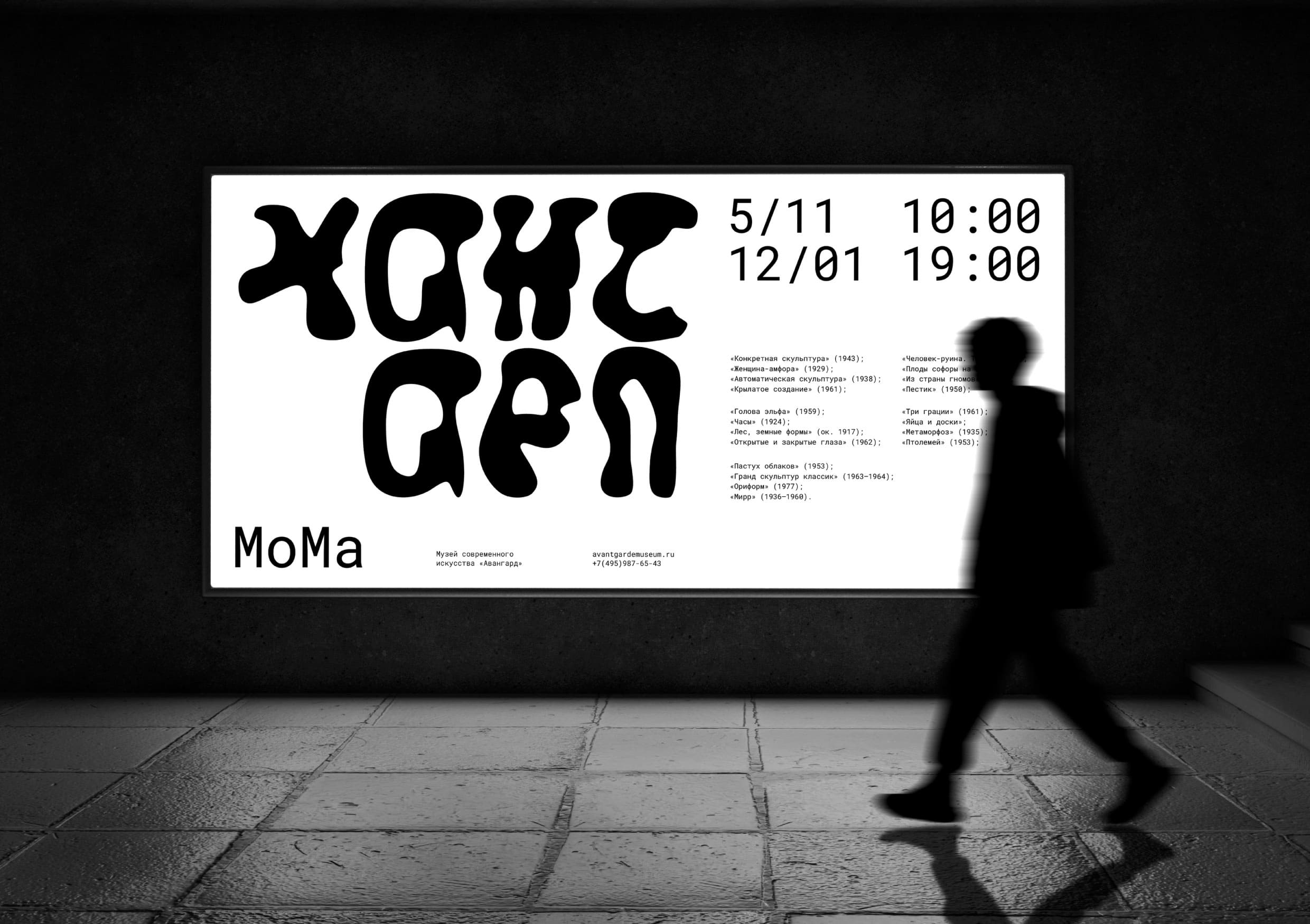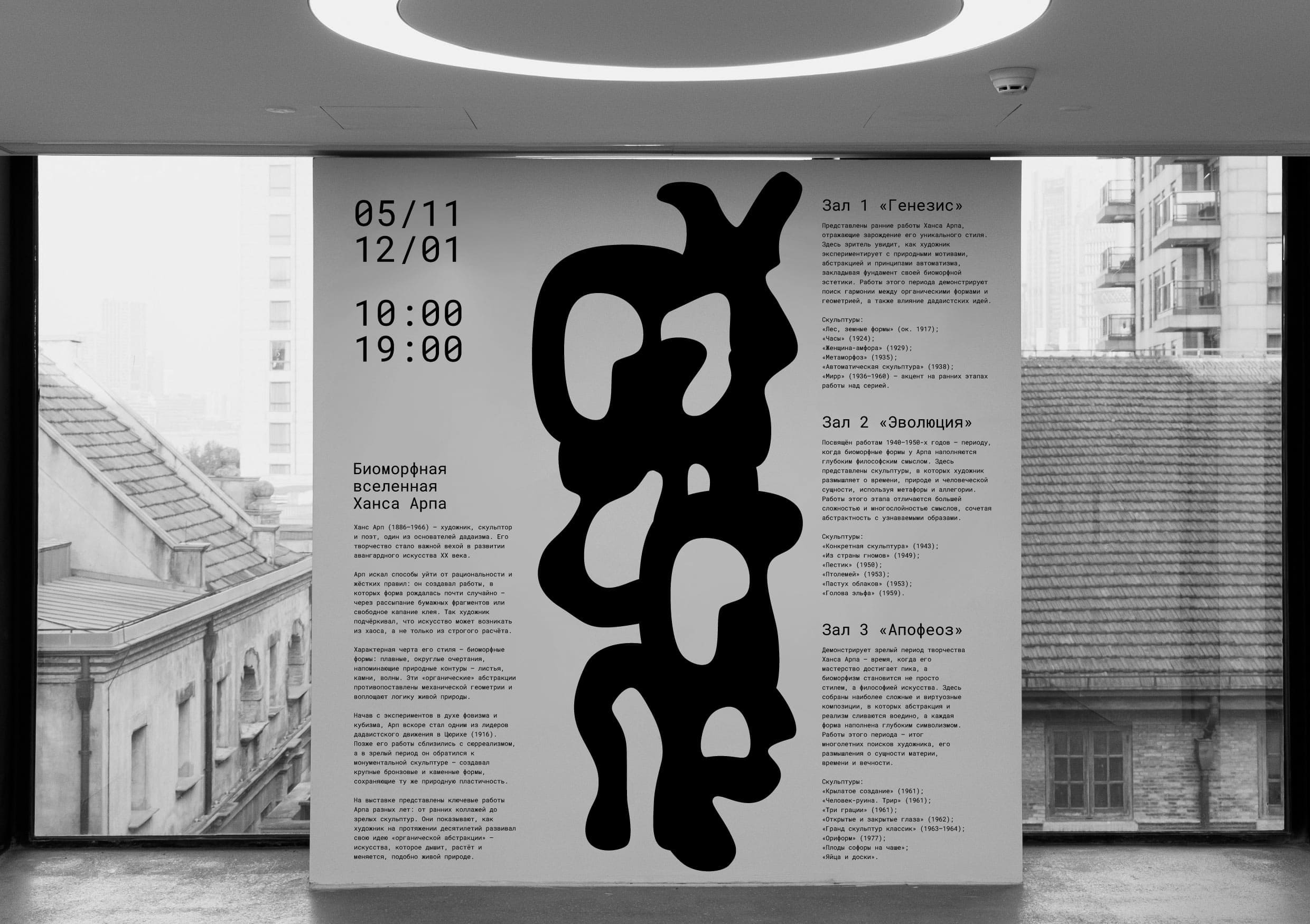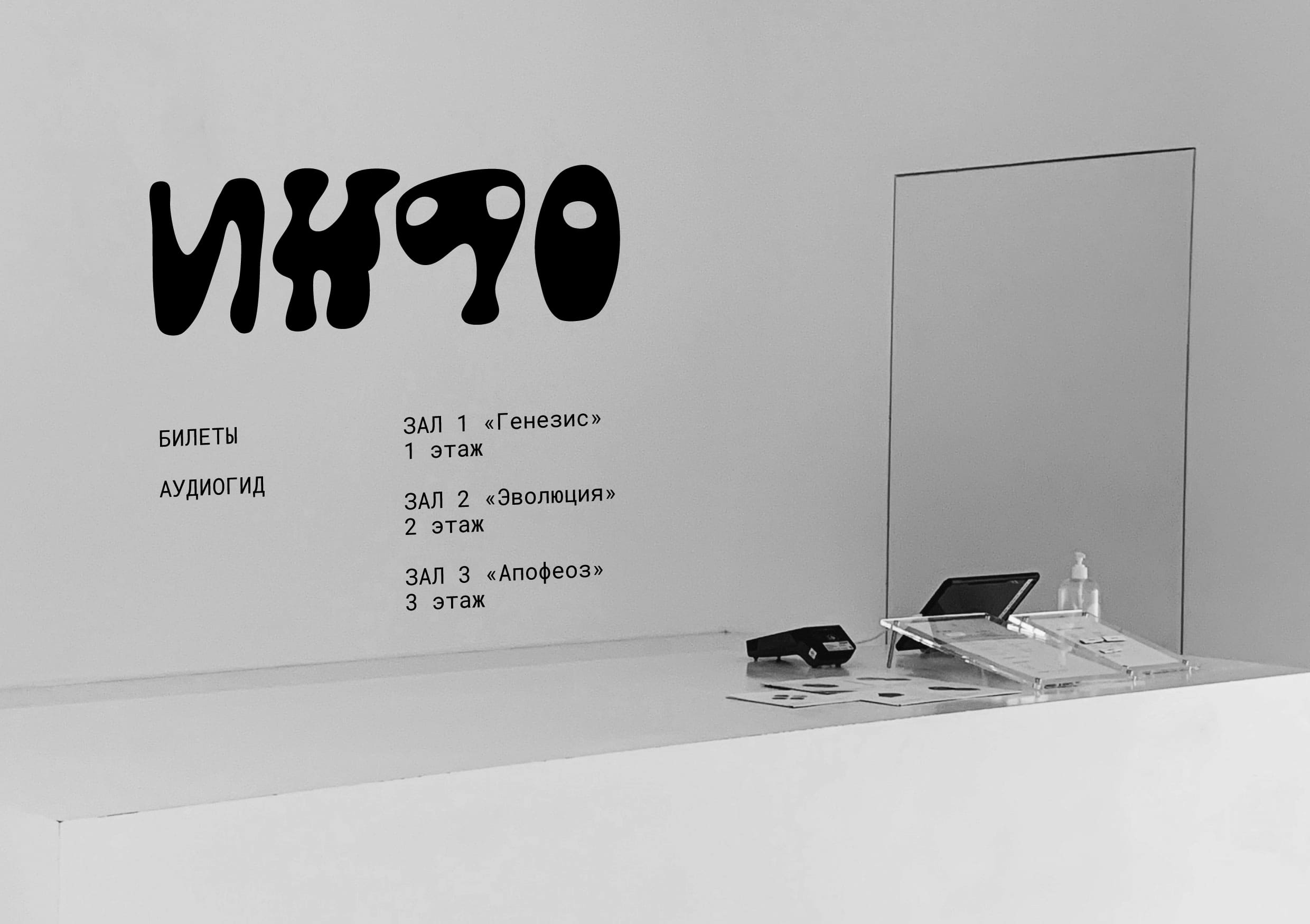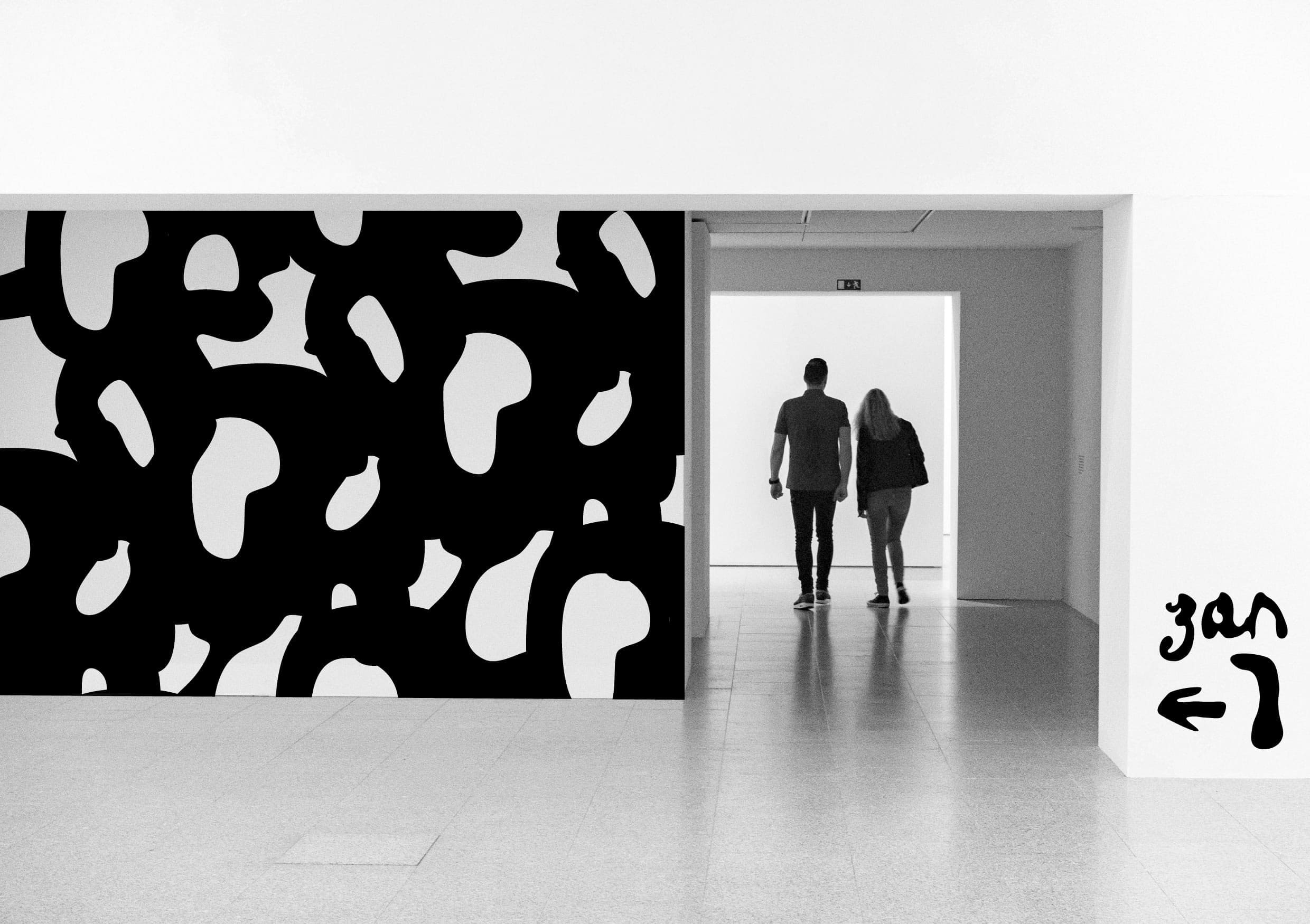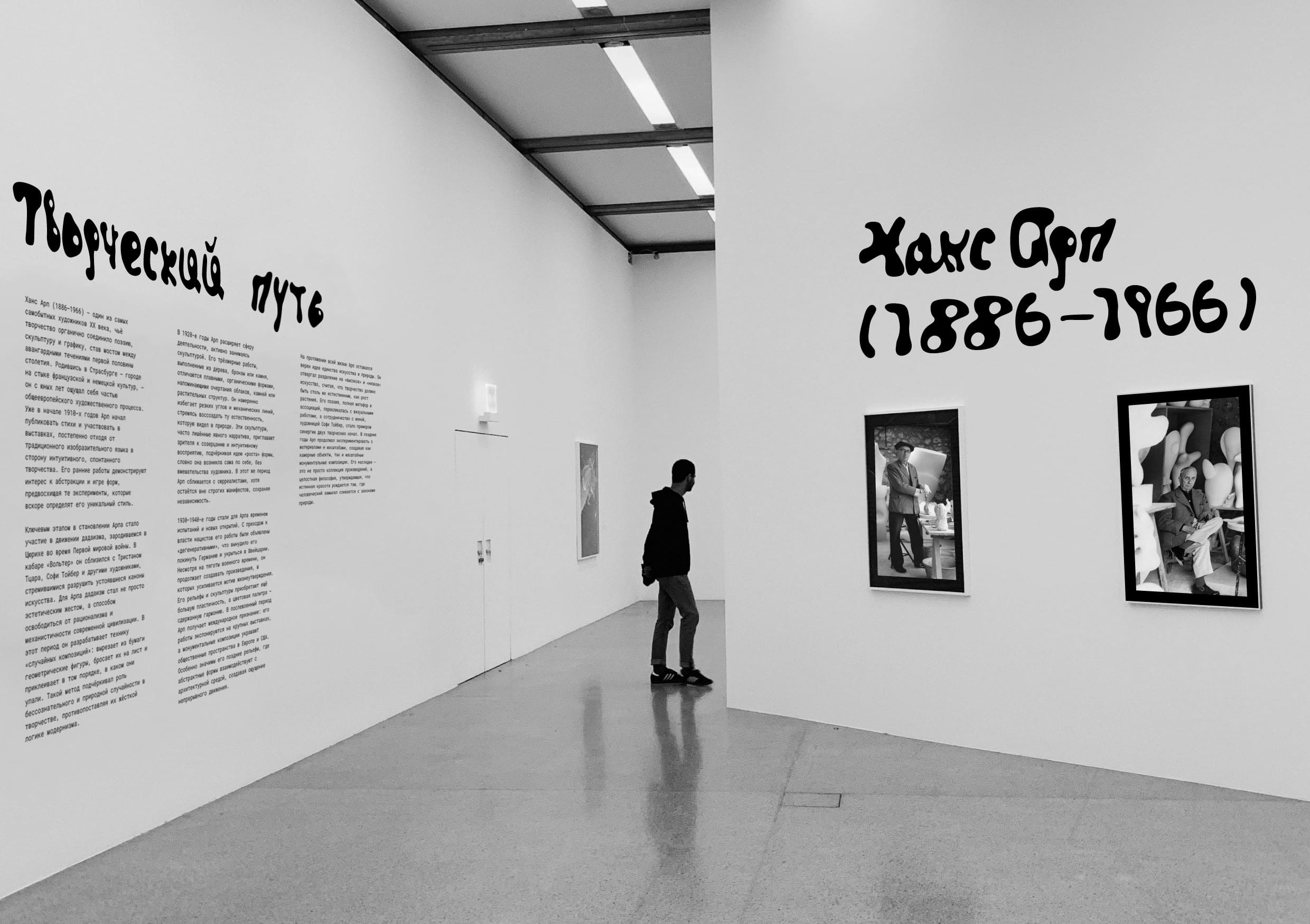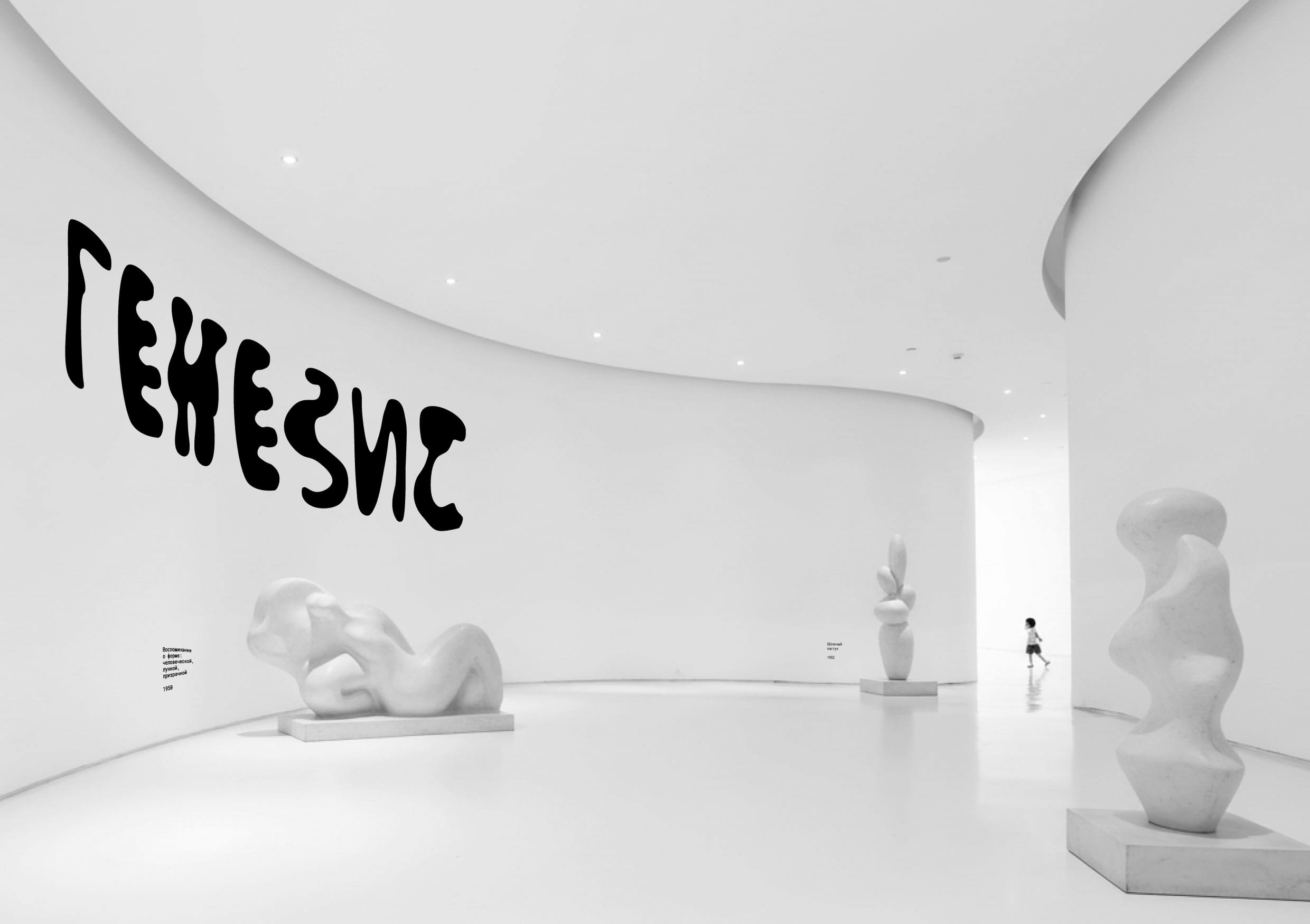
Anna Garibaldi Translates Hans Arp’s Biomorphic Universe Into a Living Exhibition Typeface
Hans Arp’s Biomorphic Universe
Project Objective: The key task was to create a unique typeface that would become the core of the exhibition’s visual identity. This typeface was to serve not simply a utilitarian function, but also a fully-fledged artistic statement—a visual translation of Hans Arp’s philosophy and aesthetics into the language of typography. It had to be instantly recognizable, associated with the master’s style, and set the tone for the entire project, built on the expressiveness of letterform.
About the artist: Hans Arp is one of the key figures of 20th-century art, the founder of Dadaism, a poet, and a sculptor inspired by the profound processes of nature. His sculptures are not depictions of specific objects, but rather essences of growth, respiration, and transformation embodied in wood, bronze, or marble. They are distinguished by smooth, streamlined contours, organic dynamics, and a complete absence of rigid geometry. Arp’s most important creative principle is chance. The artist consciously minimized rational control, allowing form to emerge through process, bringing the act of creation closer to natural, almost biological, phenomena.
Project Description: The exhibition’s visual identity is built entirely on a custom-designed typeface, a direct typographic interpretation of Arp’s biomorphic sculptures. Each letter of the alphabet is an independent abstract composition, existing according to the artist’s organic forms: with soft curves, amoeba-like contours, and an internal pulsation.
The typeface’s distinctive feature is its combinatorial and variability. The letters are not static: when brought close together, they can merge, flowing into one another, forming new hybrid forms, like living cells. This reflects Arp’s principle of randomness—each inscription is unique, its precise appearance not fully predetermined.
The project’s main “Easter egg” is hidden in negative space. The spaces between and within the characters are not simply air, but an active part of the composition. These gaps form the precise silhouettes of Arp’s famous sculptures, such as the “Leaf Vase” and “Ptolemy.” Thus, even the most utilitarian text typeset becomes a hidden gallery, where letter and sculpture, positive and negative space, coexist equally. This creates a play of perception, where the viewer, peering closer, discovers a second, sculptural dimension of typography, becoming completely immersed in Hans Arp’s “biomorphic universe.”